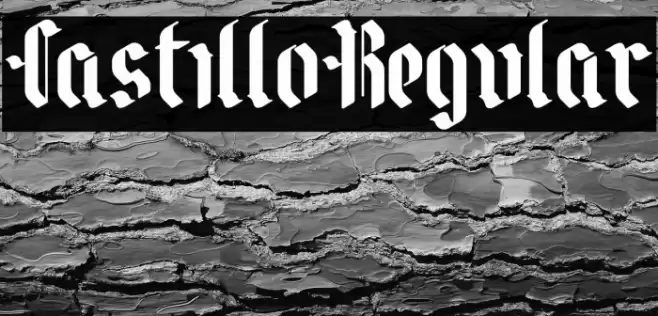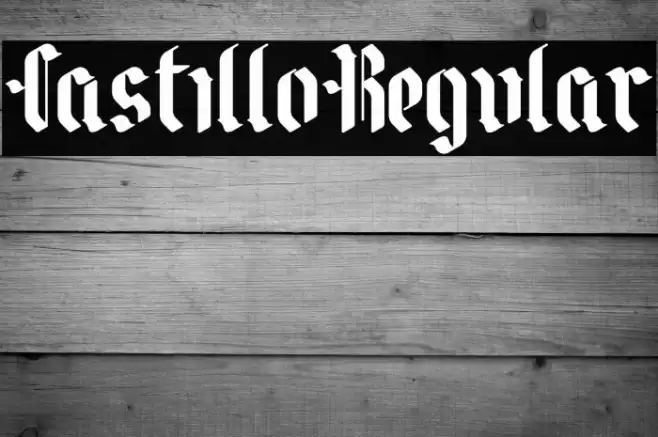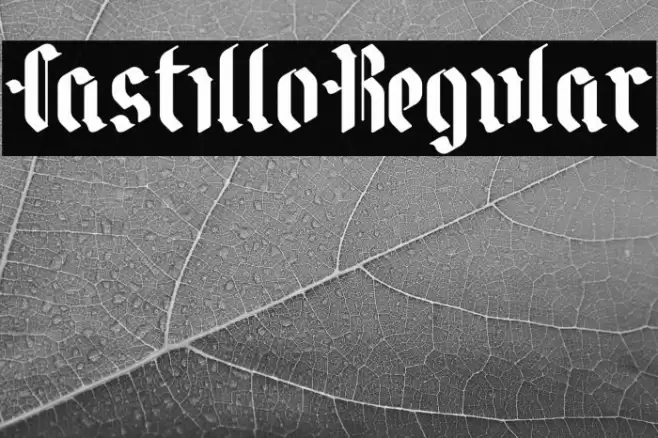
CastilloRegular Font
CastilloRegular Description
This font features a bold and dramatic blackletter style, characterized by its intricate and angular letterforms. The uppercase letters exhibit a strong vertical emphasis with sharp, pointed serifs, while the lowercase letters maintain a consistent weight and style, providing a cohesive look. The numerals are equally bold, with a distinctive gothic flair that complements the overall aesthetic. Special characters are designed with the same attention to detail, ensuring they blend seamlessly with the rest of the typeface. This font is ideal for projects that require a historical or medieval touch, offering a sense of tradition and authority.
A bold blackletter font with intricate, angular letterforms and a gothic flair from Regular fonts.
- Proposed Projects: Suitable for historical documents, medieval-themed designs, book covers, and branding that requires a traditional or authoritative look.
- Overall Style: Vintage
- Use Case: Logos, Headlines, Decorative text